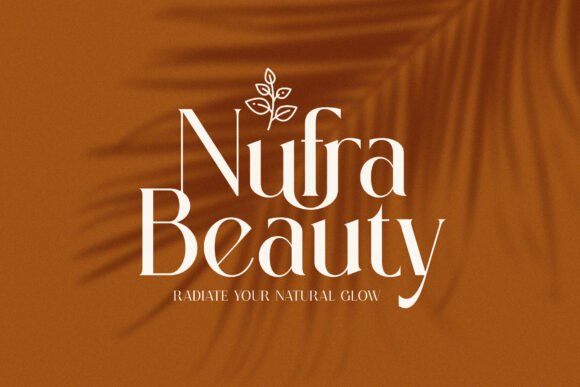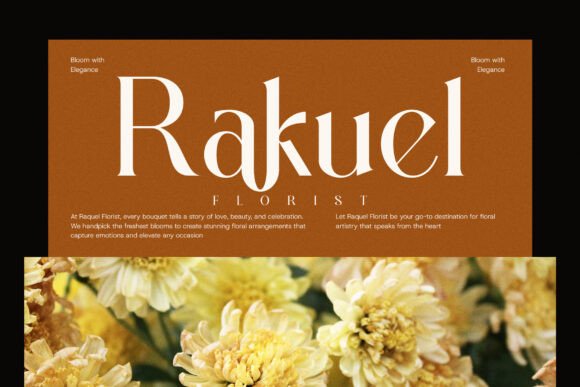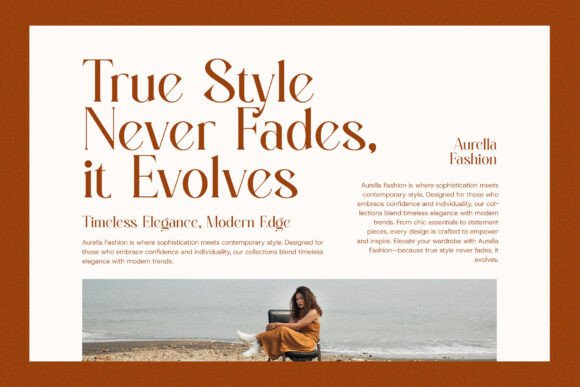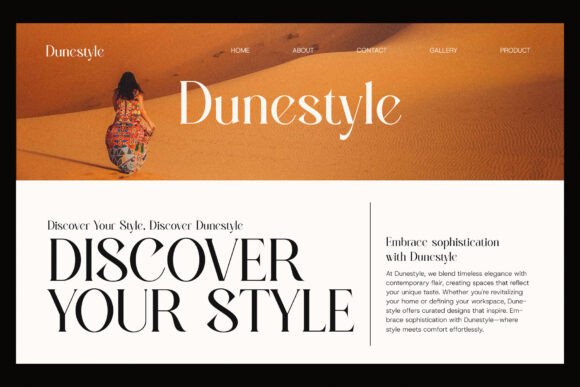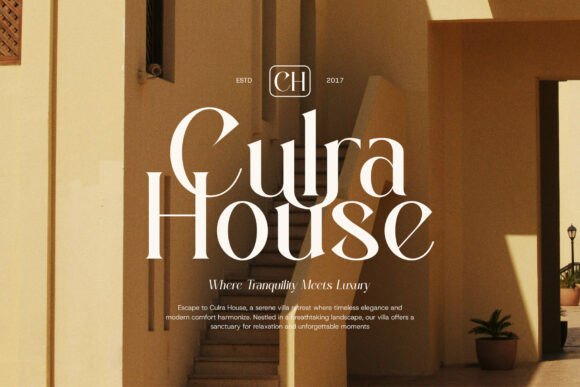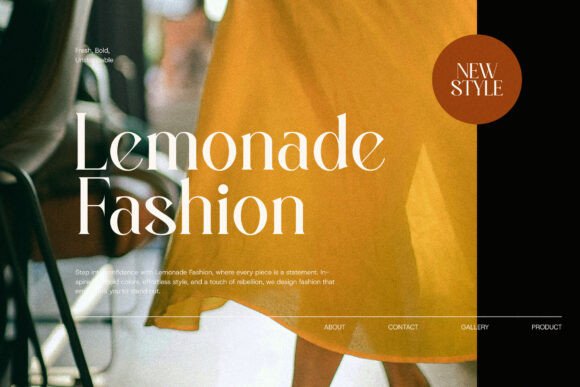
The Elusive Font: A Designer’s Quest for Elegance
I still remember the countless hours I spent searching for the perfect font for a client’s luxury branding project. The client wanted something sophisticated, elegant, and timeless, but also modern and attention-grabbing. I scoured the internet, tried out dozens of fonts, but nothing seemed to fit the bill. That was until I stumbled upon the **Gafren Elegant Serif Font**. It was love at first sight! ✨
An Honest Review of Gafren Font
- ✨ Exquisite ligatures and unique alternate characters that add a touch of sophistication to any design
- ✅ Elegant and refined, perfect for high-end branding, editorial layouts, and stylish digital or print projects
- 🌈 A wide range of creative possibilities with its carefully designed letterforms and OpenType features
- 📚 Seamless blend of classic sophistication and modern aesthetics
While Gafren Font is an excellent choice for many design projects, there are a few things to keep in mind: 🤔
- ⚠️ Some users may find the font’s elegance and refinement too subtle for certain design applications
- ⚠️ The font’s unique ligatures and alternate characters may require some experimentation to get the hang of
The Story Behind Gafren Font
Gafren Font was designed with the goal of creating a sophisticated and modern typeface that combines timeless beauty with contemporary refinement. The designer, inspired by the elegance of classic serif fonts, set out to create a font that would bring a touch of luxury to any design. With its exquisite ligatures and unique alternate characters, Gafren Font is the perfect choice for designers looking to add a touch of sophistication to their projects.
| Font Name | Gafren Font |
| What is Gafren Font best suited for? | Gafren Font is perfect for high-end branding, editorial layouts, and stylish digital or print projects that require a touch of elegance and sophistication. |
| Is Gafren Font easy to read? | Yes, Gafren Font is designed to be elegant and refined, but also highly legible. Its classic serif design makes it easy to read, even at small sizes. |